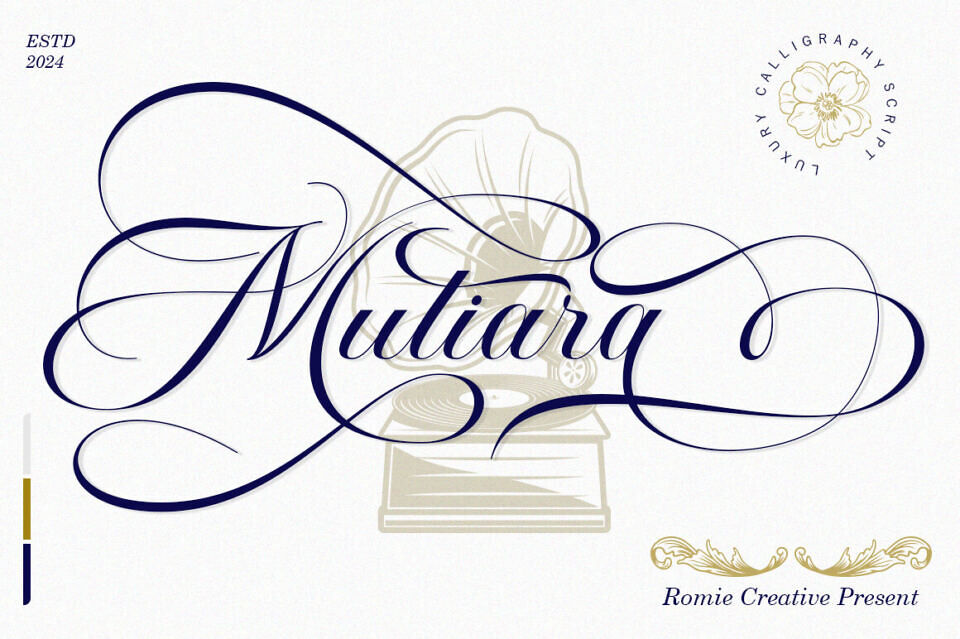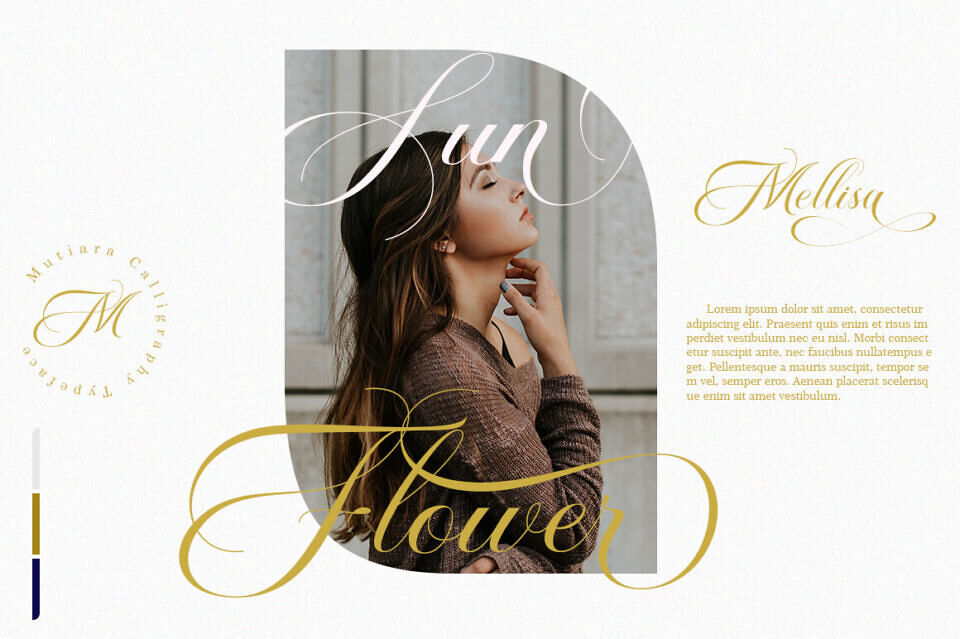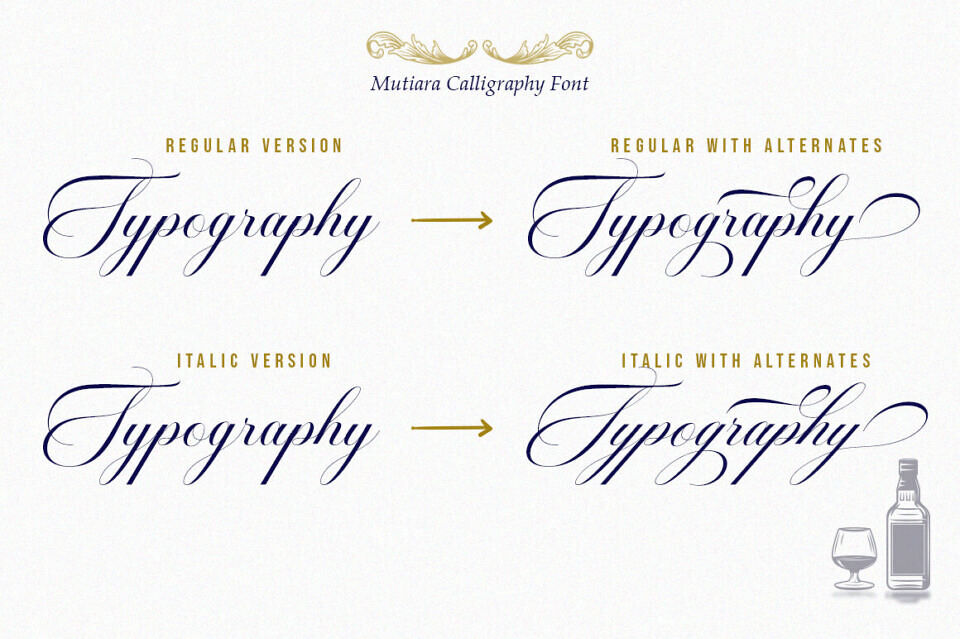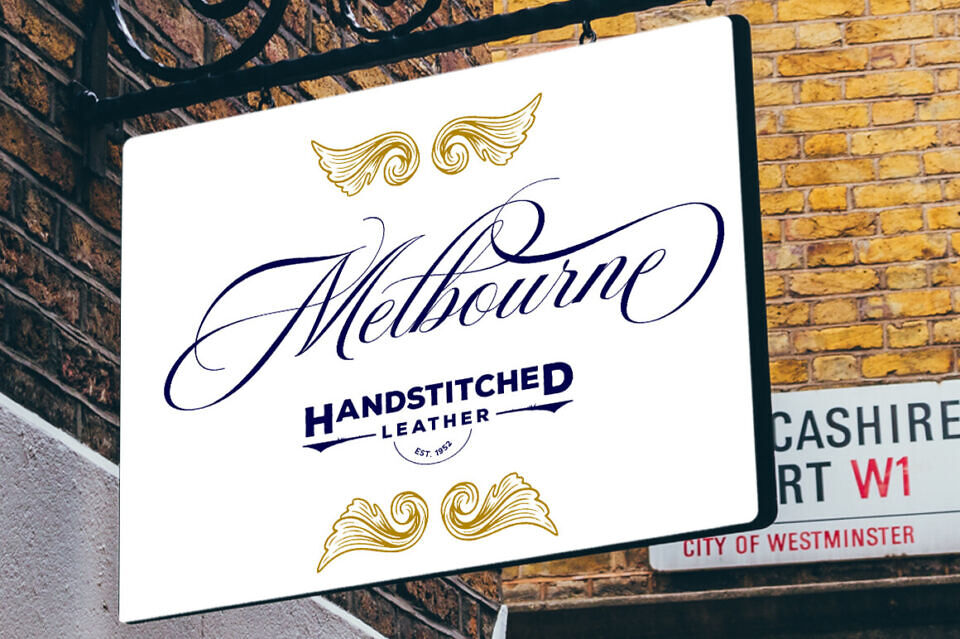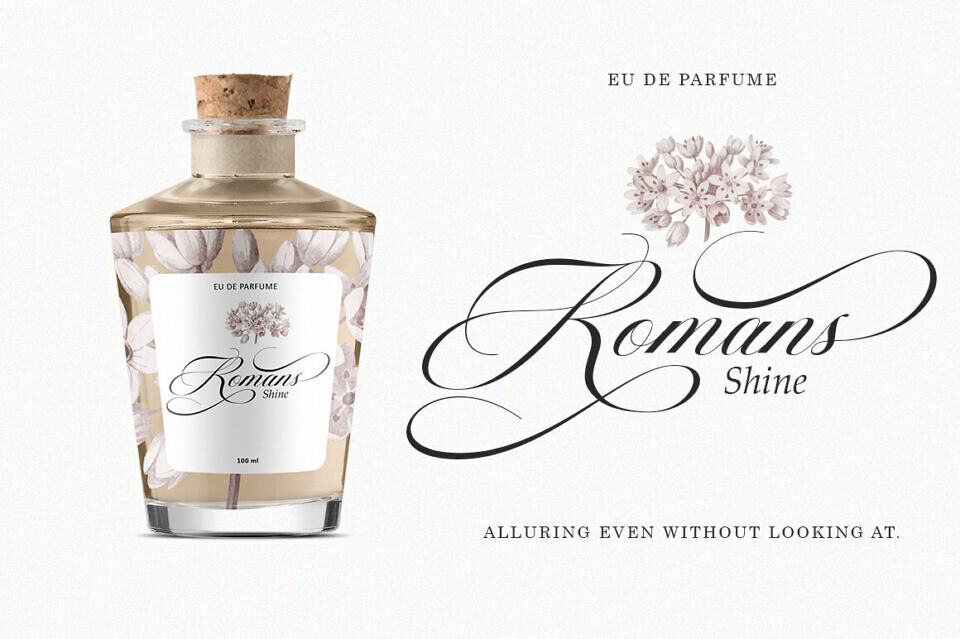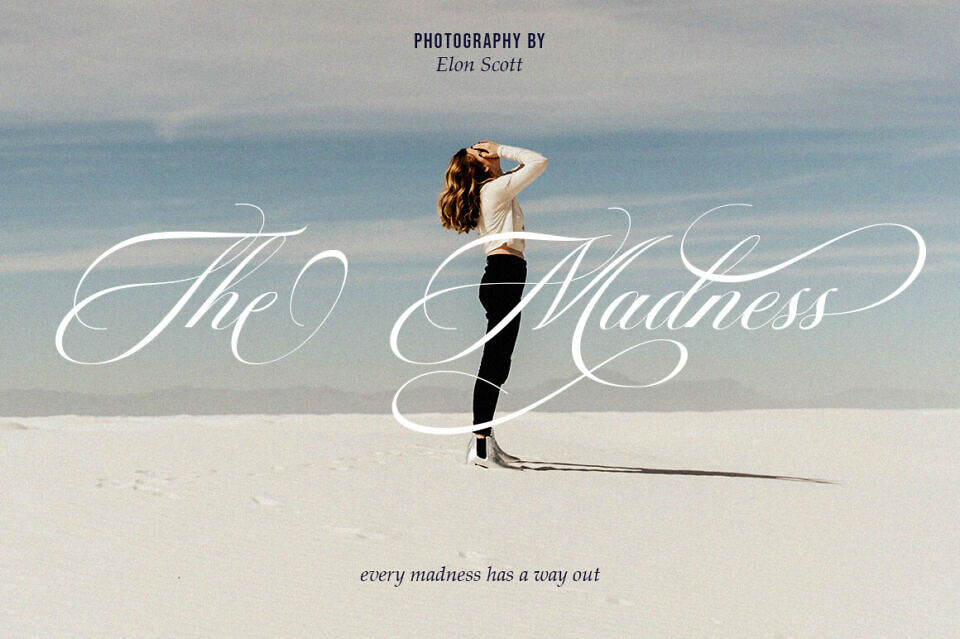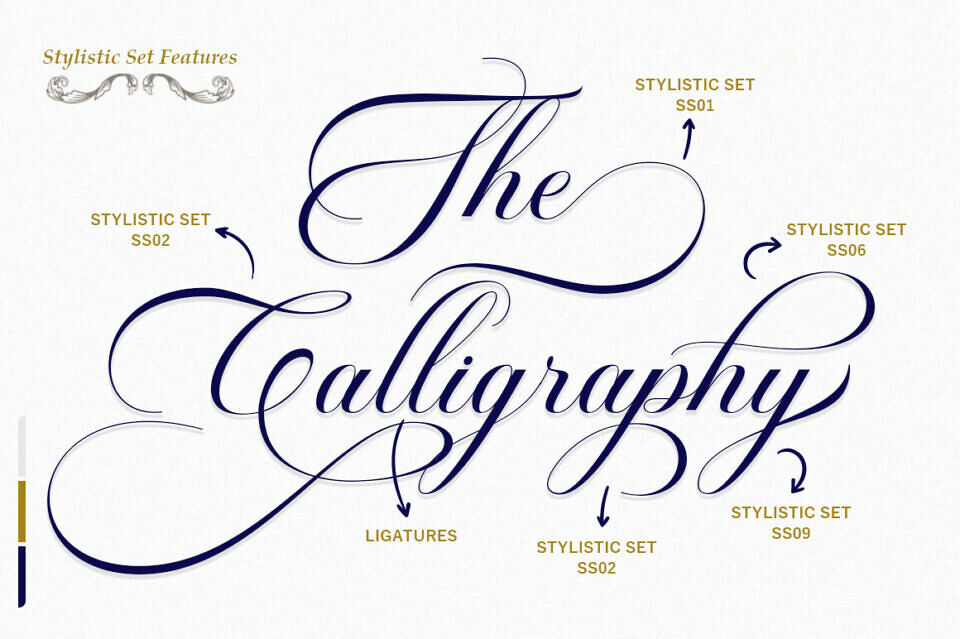
Mutiara Calligraphy Font
Mutiara is a Luxury calligraphy font. Mutiara is handcrafted with a copper plate stylus and features opentype with pua encode.
Mutiara is a Luxury Calligraphy that includes alternatives, style sets, ligatures, and swashes. It is perfect for branding, invitations wedding, and cards or quotes.
Designed by: Romie Creative